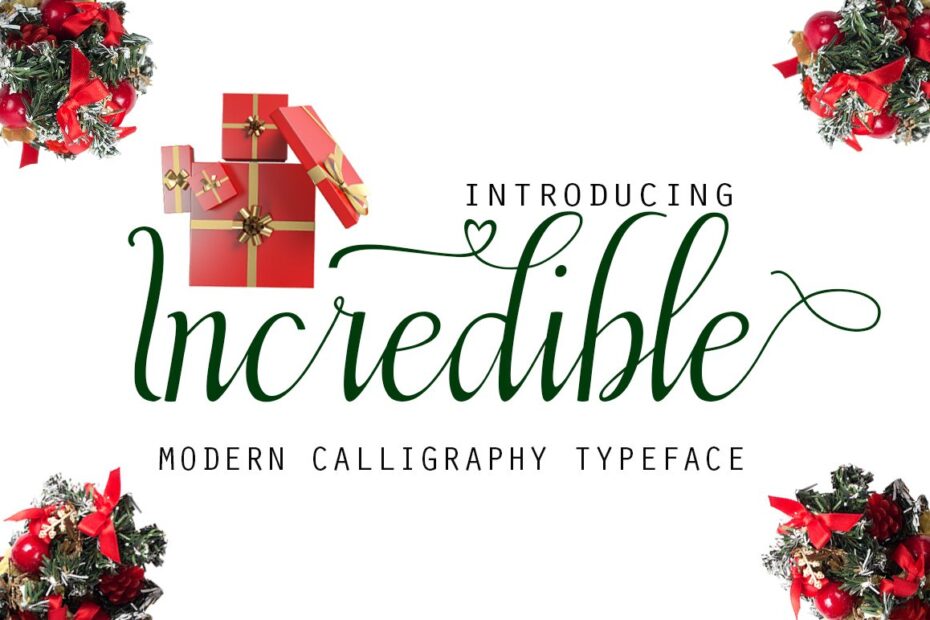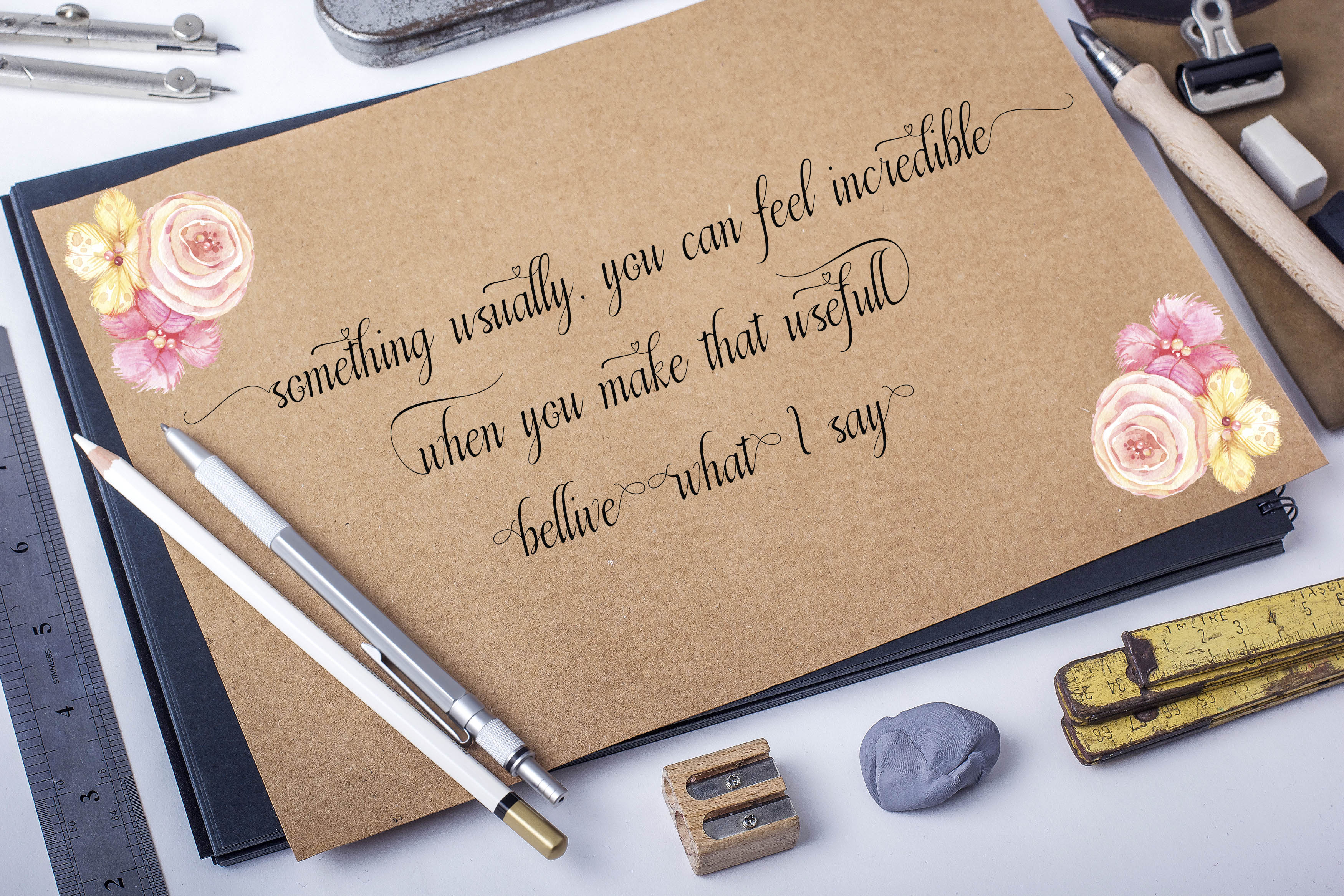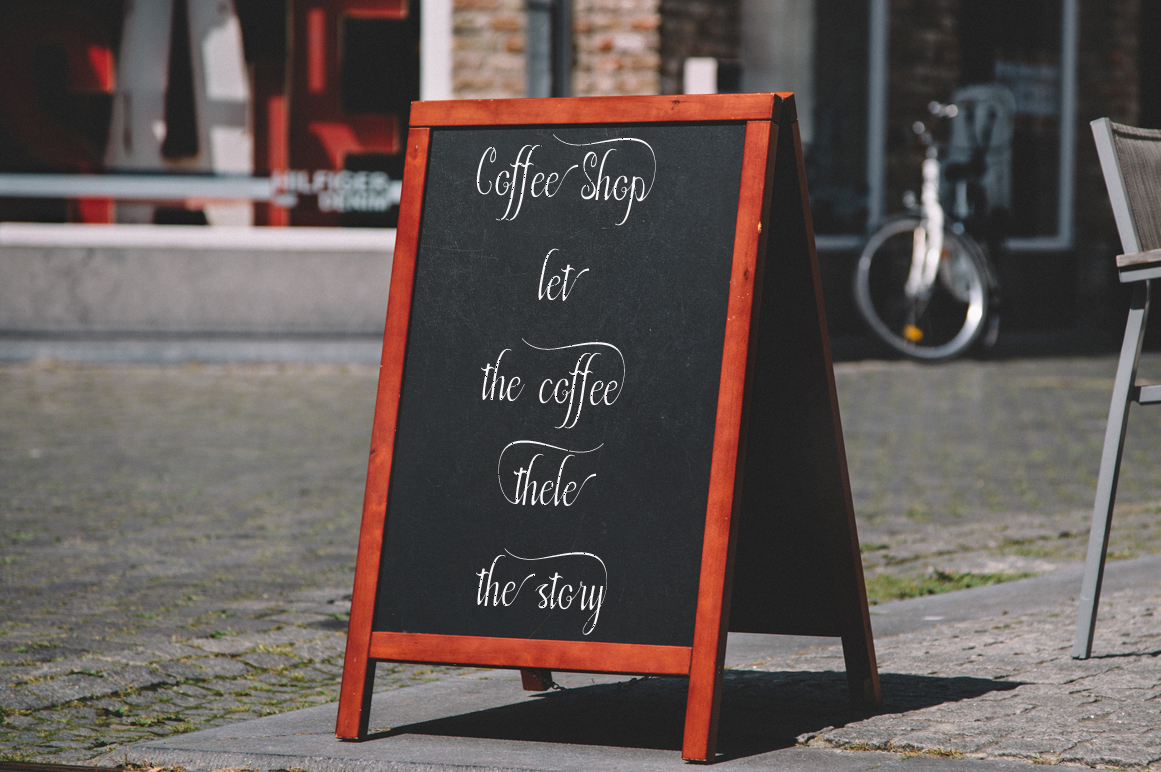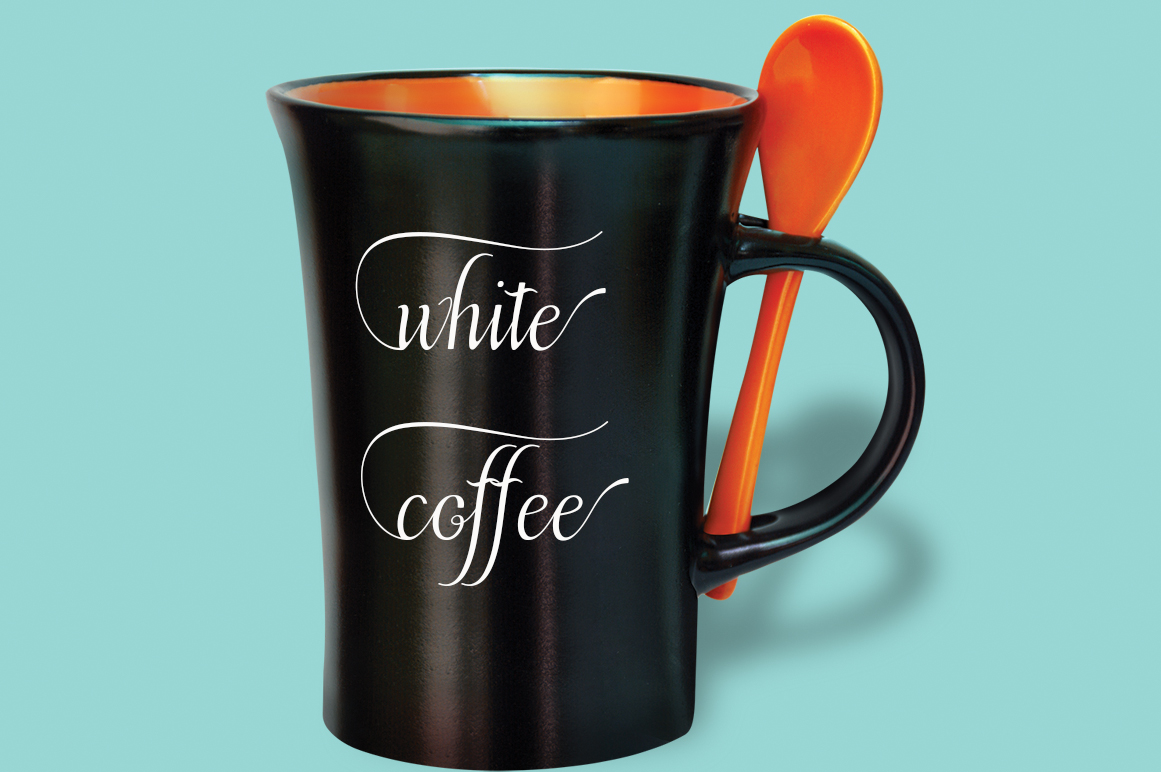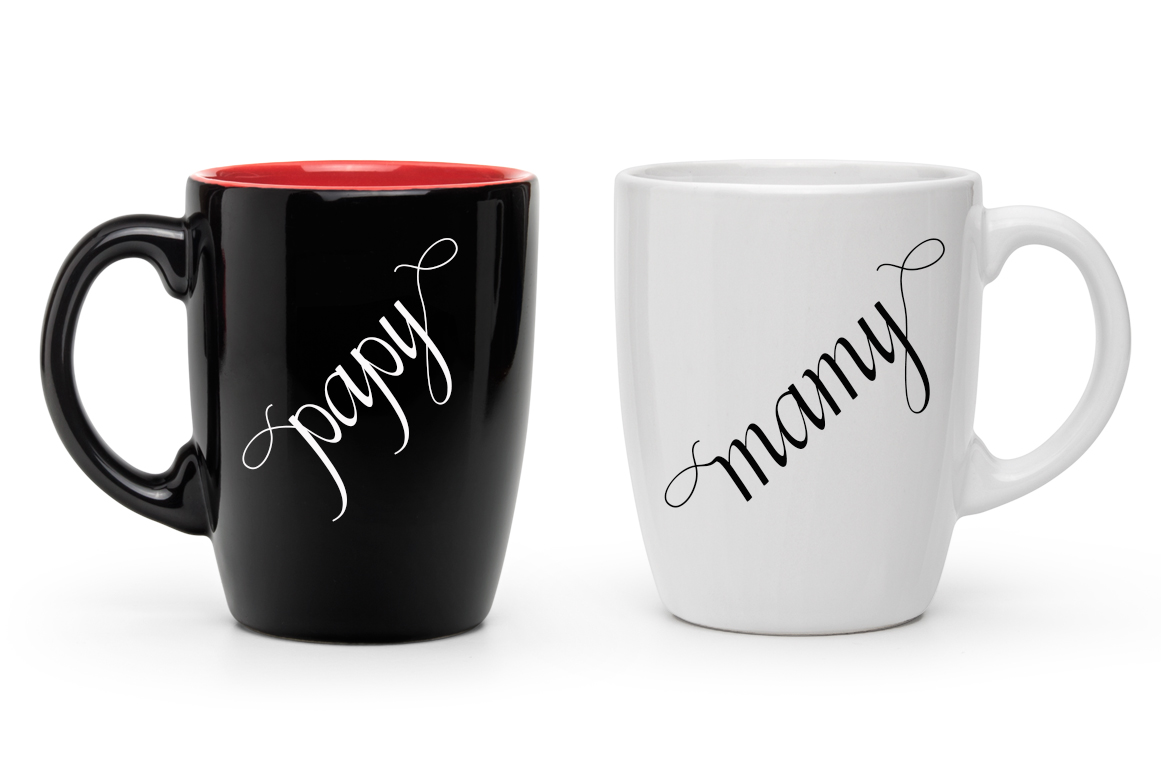
Unleashing the Magic of Handwritten Design
Have you ever found yourself in a creative flow, where the words just start pouring out, and the world around you fades away? That’s exactly what happened to many designers when they laid eyes on the Incredible Font.
This beautiful, modern handwritten calligraphy font was designed by hand and digitally optimized, making it a true masterpiece. Its unique forms and characters evoke a sense of elegance and sophistication, perfect for adding a personal touch to any design project.
For designers, the Incredible Font is a valuable tool that can help bring their vision to life. With its versatility and range of applications, it’s an essential addition to any creative toolkit. Whether you’re working on a branding project, a website, or a social media campaign, the Incredible Font is sure to make your designs stand out.
Incredible Font Key Features
- Unique Characteristics: Incredible Font features a unique blend of modern and classic design elements, with intricate details and subtle flourishes that make it perfect for creative projects.
- Font Styles: The font family includes 12 styles, ranging from Light to ExtraBold, allowing users to choose the perfect weight for their design needs.
- Language Support: Incredible Font supports over 100 languages, including Latin, Cyrillic, Greek, and many more, making it an ideal choice for international projects.
- Scalability: The font is designed to scale seamlessly, maintaining its clarity and legibility even at very small or very large sizes.
Incredible Font Review
Overall, I’d say that Incredible Font is a decent choice, but it’s not without its flaws. Here’s what I think:
- Highly legible and clear, making it perfect for body text.
- Versatile and suitable for various design styles.
- Supports a wide range of languages, which is great for global projects.
- Works well in digital formats, including web and mobile applications.
- Lack of bold and italic variations for headings, which can be a limitation for certain design projects.
- Some characters may appear slightly pixelated at smaller font sizes.
- Not suitable for print materials that require high-end typography.
Incredible Font is a solid choice for everyday use, but it may not be the best option for more demanding design projects. It’s a great font for beginners or those who need a simple, easy-to-read font for digital projects. However, for more advanced designers or those who require high-end typography, there may be better options available.
Incredible Font Practical Application Guide
Getting the Most Out of Incredible Font
For the best results, use Incredible Font in combination with bold, italics, and other font styles to create a visually appealing design.
Incredible Font is ideal for:
- Marketing materials and advertisements
Alternatives to “Incredible Font” for Designers
Great Vibes Font is a modern, elegant script font perfect for creating a luxurious and sophisticated look. It’s ideal for use in branding, logos, and titles where a touch of class is required.
Compared to Incredible Font, Great Vibes Font is more refined and less playful. While Incredible Font is great for casual designs, Great Vibes Font excels in high-end and premium designs.
Dancing Script Font is a lively, handwritten font perfect for creating a whimsical and playful look. It’s ideal for use in posters, advertisements, and social media graphics where a touch of personality is required.
Compared to Incredible Font, Dancing Script Font is more expressive and less formal. While Incredible Font is great for general use, Dancing Script Font is better suited for creative and artistic designs.
Lobster Font is a fun, cursive font perfect for creating a relaxed and casual look. It’s ideal for use in body text, social media posts, and product descriptions where a friendly tone is required.
Q: What is the recommended font size for Incredible Font?
The recommended font size for Incredible Font is between 10pt and 24pt. However, this may vary depending on the specific design application and intended use. It’s always a good idea to test the font at different sizes to ensure optimal readability.